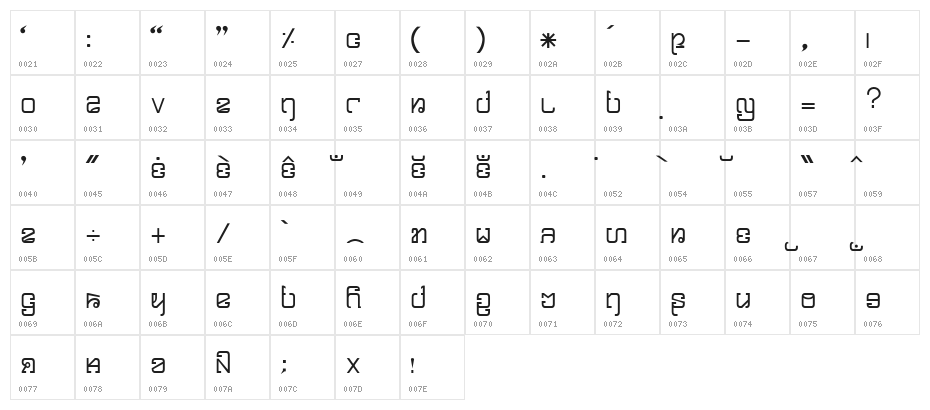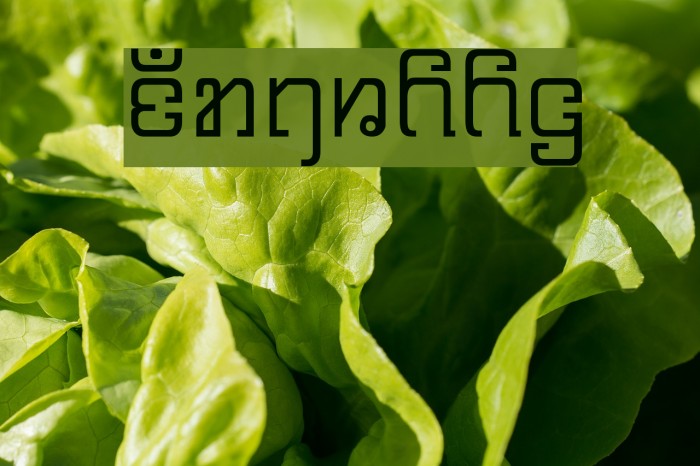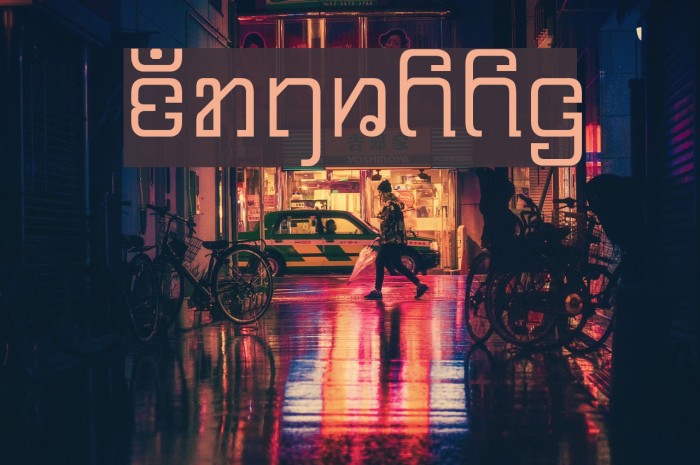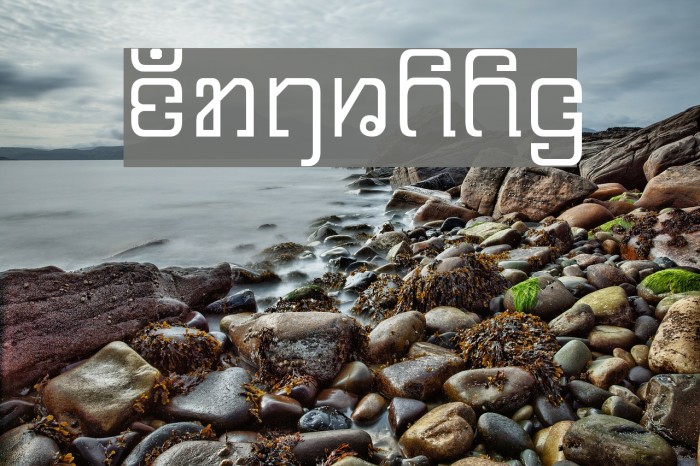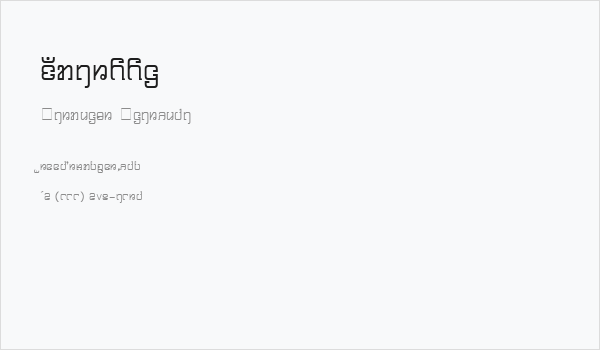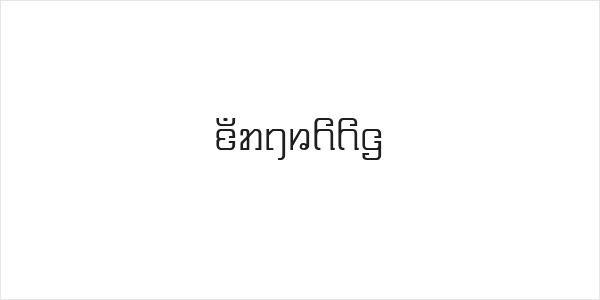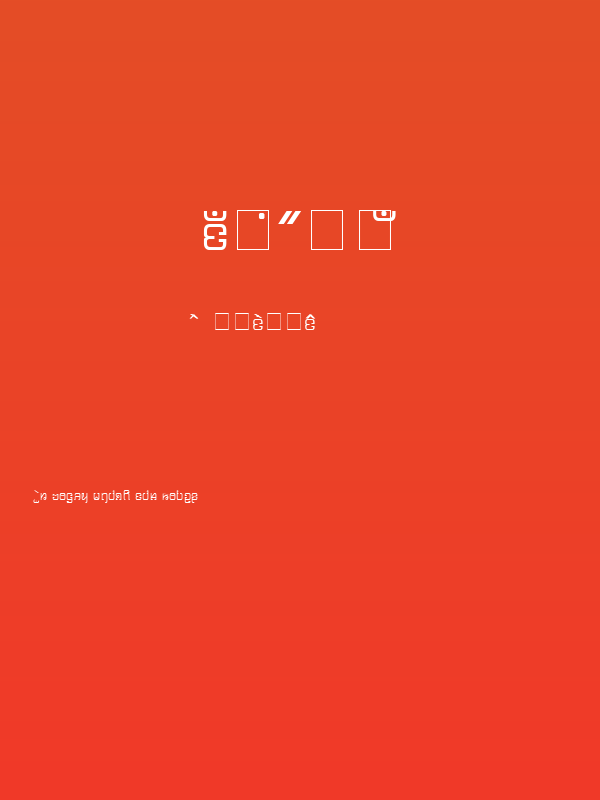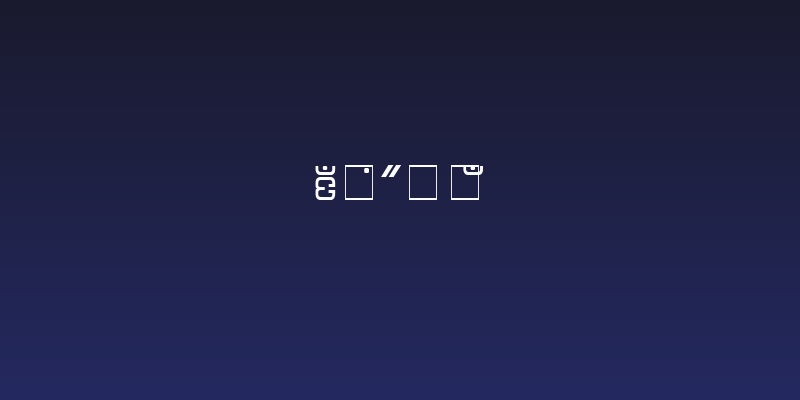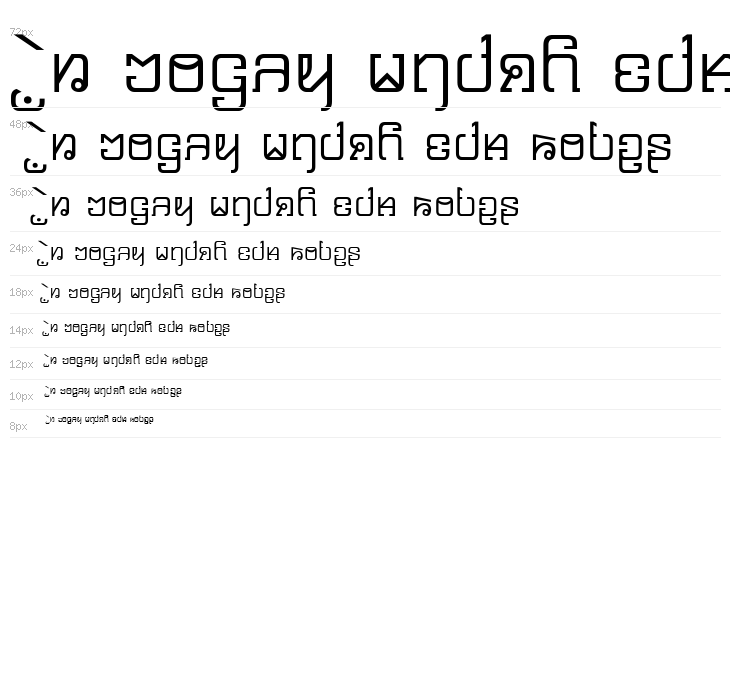
Karenni Font
Karenni Description
This font features a unique and modern design with a distinct geometric structure. The characters are composed of clean lines and rounded edges, giving it a futuristic and tech-inspired appearance. The font maintains a consistent weight throughout, with medium contrast between thick and thin strokes. Its style is both decorative and functional, making it suitable for a variety of creative applications. The characters are well-spaced, ensuring readability while maintaining an artistic flair. This font is ideal for projects that require a contemporary and innovative look.
| Use Case | Logos, Headlines, Digital interfaces |
| Proposed Projects | Ideal for tech branding, futuristic designs, digital interfaces, and creative posters. |